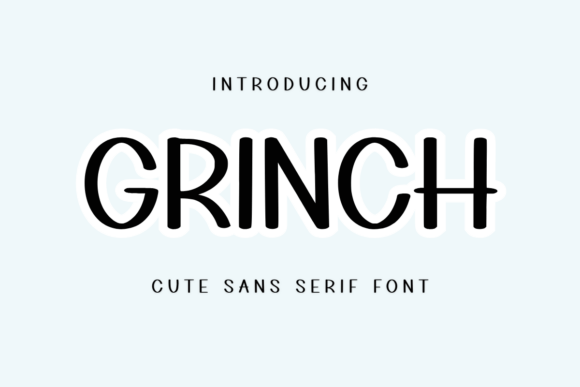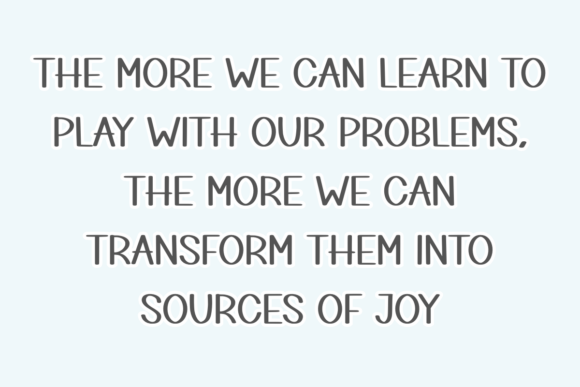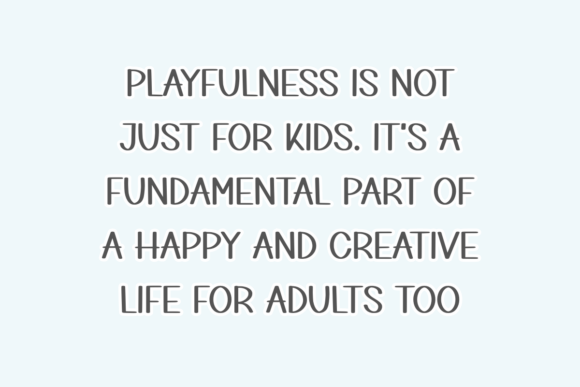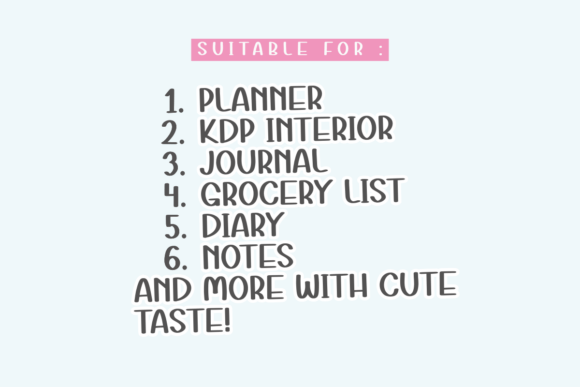
The Perfect Font for a Cozy Creative Moment
There’s nothing quite like curling up with a warm cup of coffee, surrounded by half-finished projects and scribbled notes, as you brainstorm your next big idea. The world outside fades away, and all that matters is the creative spark within you. In these moments, the right font can be the perfect companion, helping to bring your vision to life.
Enter the Grinch Font, a delightful casual handwritten font that adds a touch of warmth and personality to your designs. Whether you’re crafting a quote, branding a new project, or simply sharing a social media post, Grinch Font is the perfect choice to add a friendly and approachable feel. Its smooth strokes, natural curves, and well-balanced letterforms make it a valuable asset for designers seeking to create authentic and engaging content.
Grinch Font Key Features
- Font Family: Grinch Font is a sans-serif font designed to resemble the Grinch character from Dr. Seuss’s classic children’s book.
- Unique Characteristics: The Grinch Font features a distinctive, bold, and playful design, with letterforms that evoke the Grinch’s grumpy yet lovable personality.
Grinch Font Review
At first glance, the Grinch Font may seem like a fun and quirky addition to any design project. ✨ The font’s unique, bold lines and irregular shapes do have a certain charm to them.
Here are a few things that work well:
- ✨ Uniqueness: The Grinch Font stands out from more traditional fonts, making it perfect for designers looking to add a touch of whimsy to their work.
- ✨ Versatility: The font can be used for a wide range of projects, from children’s books to advertisements.
- ✨ Expressiveness: The Grinch Font is highly expressive, conveying a sense of grumpiness and playfulness at the same time.
- ⚠️ Readability: At larger font sizes, the Grinch Font can be difficult to read, especially for long blocks of text.
- ⚠️ Limited font sizes: The font may not be suitable for smaller font sizes, as the bold lines can become hard to distinguish.
Overall, the Grinch Font is a fun and creative choice for designers who want to add some personality to their work. While it may not be suitable for every project, it’s definitely worth considering for the right application.
Practical Application Guide for Grinch Font
The Grinch Font is perfect for adding a touch of whimsy and playfulness to your designs. Use it for:
- Children’s book covers or illustrations.
- Christmas or holiday-themed designs.
- Quirky or humorous advertising campaigns.
- Personalized gift tags or cards.
Remember to experiment with different font sizes, colors, and styles to get the most out of the